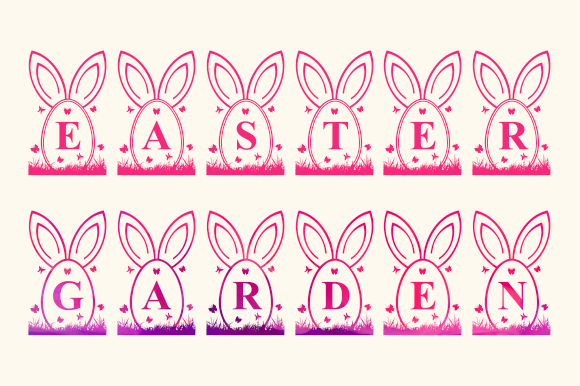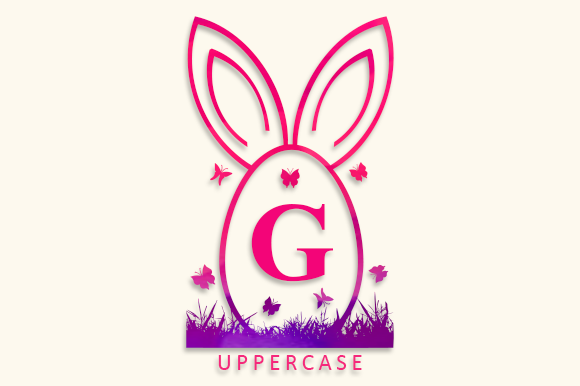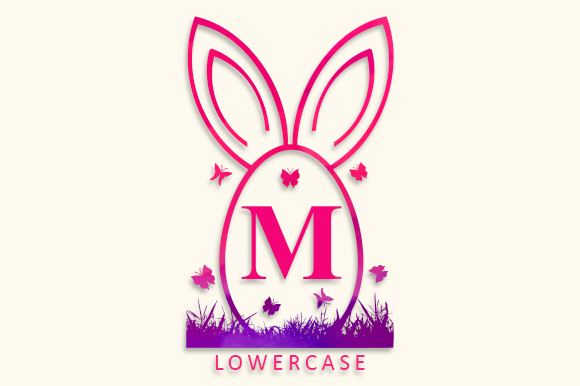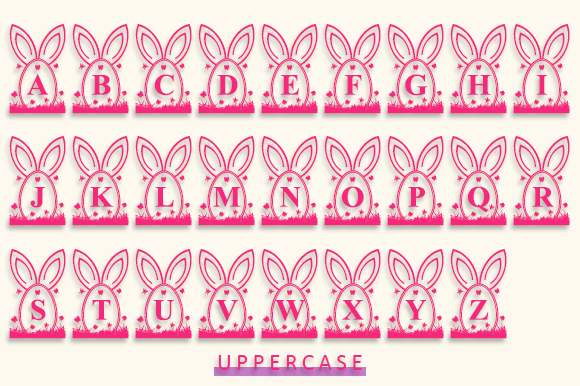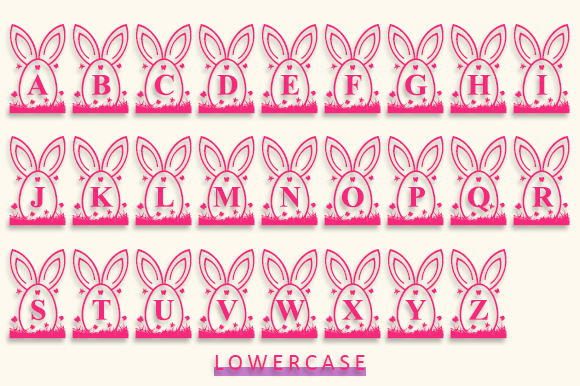
Easter Garden Font: The Perfect Addition to Your Easter Designs
As Easter approaches, designers and crafters are on the lookout for the perfect font to add a touch of sweetness and festivity to their creations. If you’re looking for a font that will make your Easter designs stand out from the crowd, look no further than the Easter Garden Font. This charming decorative font is specifically designed to bring a sense of joy and celebration to your Easter-related projects.
A Sweet and Simple yet Visually Impactful Font
Easter Garden Font is a sweet decorative font that boasts a simple yet strong visual effect. Its clean lines and delicate curves make it an ideal choice for a wide range of Easter-themed designs, from greeting cards and invitations to social media graphics and blog posts. Whether you’re a professional designer or a crafter looking to add a personal touch to your Easter creations, this font is sure to impress.
Key Features of Easter Garden Font
- Unique and Festive Design: Easter Garden Font features a unique and festive design that is perfect for Easter-themed projects.
- Simple yet Visually Impactful: The font’s simple design belies its strong visual effect, making it perfect for designs that need to stand out.
- Highly Versatile: Easter Garden Font can be used for a wide range of design projects, from digital graphics to print materials.
- Easily Readable: Despite its decorative nature, Easter Garden Font is easily readable, making it perfect for designs that require a clear and concise message.
How to Use Easter Garden Font in Your Designs
Using Easter Garden Font in your designs is easy. Here are a few ideas to get you started:
- Easter Greeting Cards: Use Easter Garden Font to create beautiful and festive Easter greeting cards that are sure to delight your friends and family.
- Social Media Graphics: Add a touch of Easter cheer to your social media graphics with Easter Garden Font.
- Easter Invitations: Create eye-catching Easter invitations with Easter Garden Font that will set the tone for your Easter celebration.
- Blog Posts: Use Easter Garden Font to add a festive touch to your Easter-themed blog posts.
Why Choose Easter Garden Font?
There are many fonts to choose from, but Easter Garden Font stands out from the crowd for several reasons:
- Unique Design: Easter Garden Font features a unique design that is specifically tailored to Easter-themed projects.
- Easily Customizable: The font is easily customizable, allowing you to adjust the size, color, and style to suit your design needs.
- High-Quality: Easter Garden Font is a high-quality font that is designed to produce crisp and clear results.
If you’re looking for a font that will add a touch of sweetness and festivity to your Easter designs, look no further than Easter Garden Font. With its simple yet visually impactful design, this font is perfect for a wide range of Easter-themed projects. Whether you’re a professional designer or a crafter, Easter Garden Font is sure to become a valuable addition to your font collection.